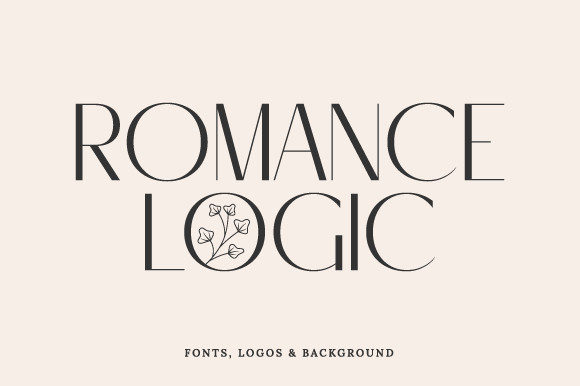
Journey into the realm of captivating typography with Romance Logic Font, a sans serif masterpiece crafted by Prioritype. Immerse yourself in a world of elegance and simplicity, where letters dance with grace and poise.
Romance Logic's unique charm lies in its distinctive letterforms, particularly the varying widths of C, D, G, O, and Q. This subtle yet striking detail breathes life into your designs, creating a visual symphony that captivates and enchants.
Unleash your creativity with Romance Logic, a font that seamlessly blends classicism and modernity. Its clean lines and graceful curves evoke a sense of timeless sophistication, while its contemporary twist ensures it remains relevant and impactful in today's dynamic design landscape.
Romance Logic's versatility extends beyond its aesthetic appeal. Its diverse range of applications makes it an invaluable asset for designers of all skill levels. Whether you're crafting logos, branding designs, or captivating social media posts, Romance Logic effortlessly elevates your work to new heights.
But that's not all! Romance Logic comes with an exclusive bonus: a stunning logo and background that perfectly complement the font. These elements serve as a springboard for your creativity, enabling you to create cohesive and visually striking designs that leave a lasting impression.
Romance Logic Font: Where artistry meets innovation. A font that captivates, engages, and inspires. Elevate your designs to new heights and embark on a design journey like no other. Embrace the allure of Romance Logic today!